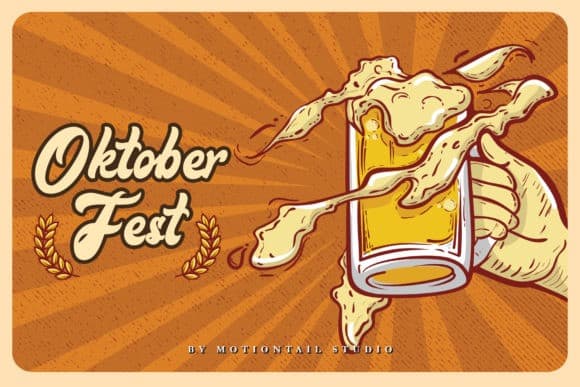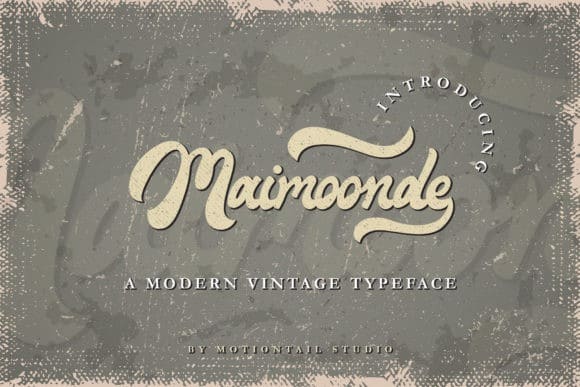
Maimoonde Bold Script Font is bold and elegant lettered script font manufactured by motiontailstudio. Its friendly feel makes this font incredibly versatile, fitting a wide range of contexts. Elegant and stylish, this font will elevate each of your creative ideas. Maimoonde is PUA encoded which means you can access all of the glyphs and swashes with ease!